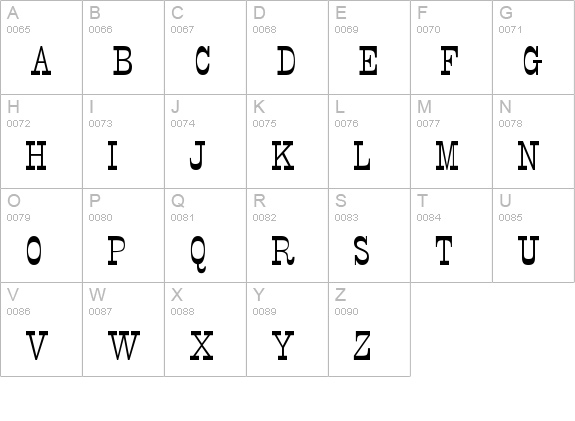
Circus Light Font Details
Circus Light is a refined, elegant variant in the Circus typeface family \xE2\x80\x94 well suited to elegant body text, refined sub-headings, and luxury branding.
Circus Light font is a whimsical and playful typeface that will bring a touch of magic to your designs. With its bold and curvaceous letterforms, this font is perfect for adding a fun and festive element to any project. Whether you're creating invitations, posters, or branding materials, Circus Light will help your text stand out and capture attention. Best of all, Circus Light is available for free download at FontsMarket.com. This means you can easily access this charming font and use it in your projects without any cost. Don't miss out on the opportunity to add a touch of circus flair to your designs with Circus Light font, available for free at FontsMarket.com.